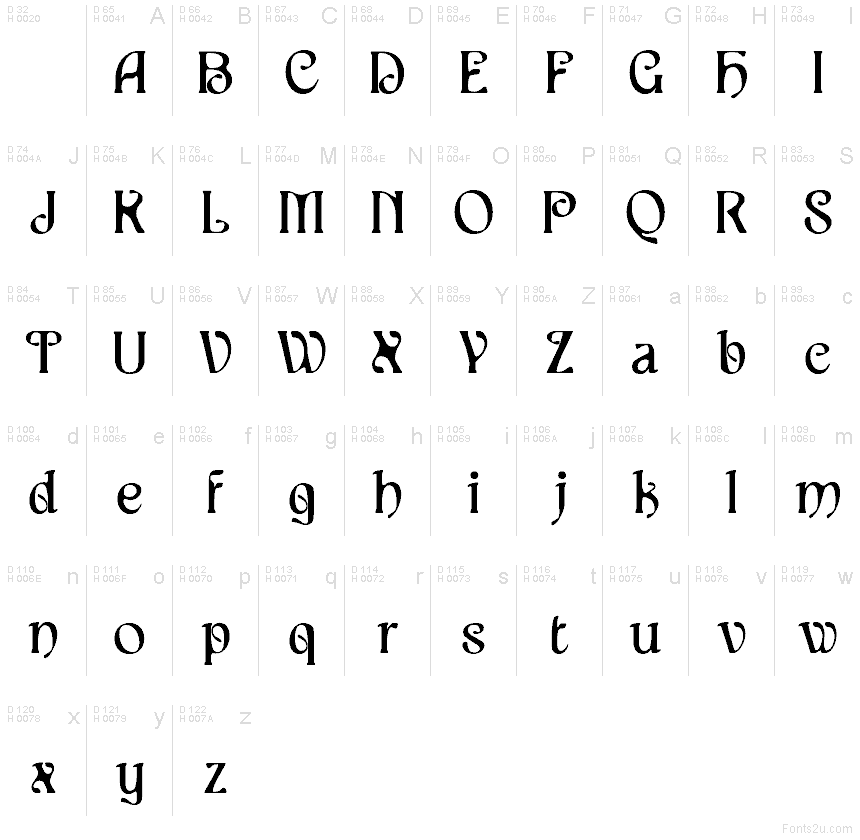
CSChakoDrawn-Regular Demo
CS Chako Drawn font by Craft Supply Co. is a whimsical display font with medieval-inspired themes and an artistic flair. It features ornate detailing and expressive form as it embraces each letter’s uniqueness and extraordinary shapes that together present a distinctive artistic handwriting style.
This free display font has, among its use cases, comic books, book covers, posters/flyers, branding/labels/packaging projects, comics/manga projects, video games/UI design, illustrations/printworks/stickers/enamel pins designs.